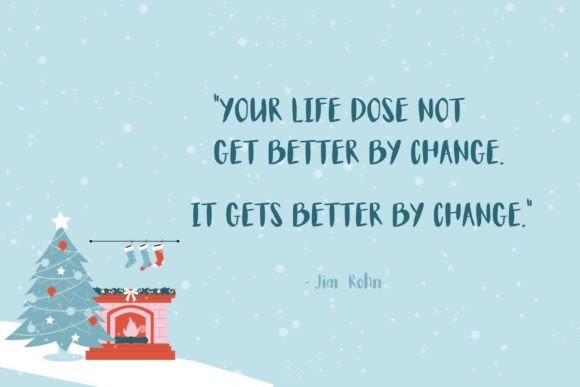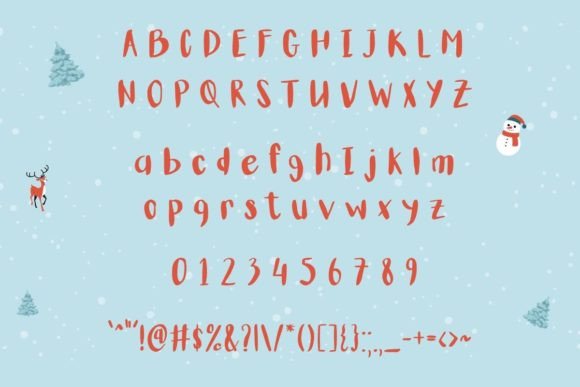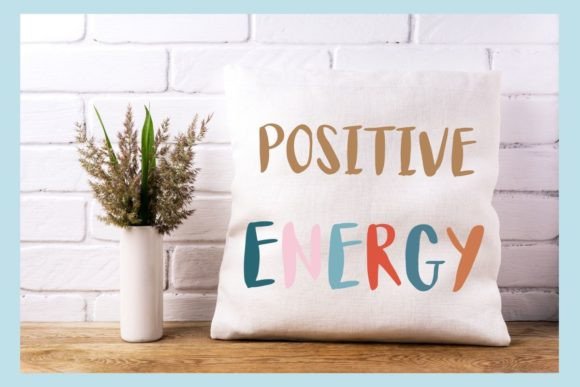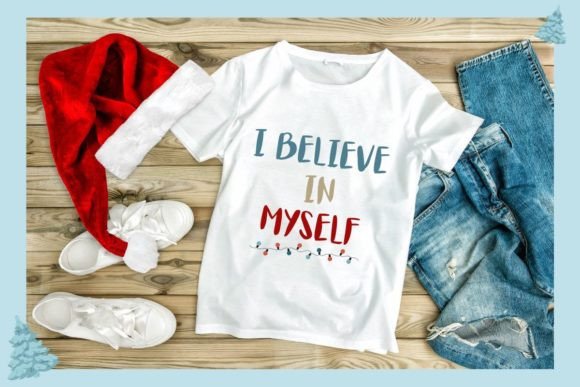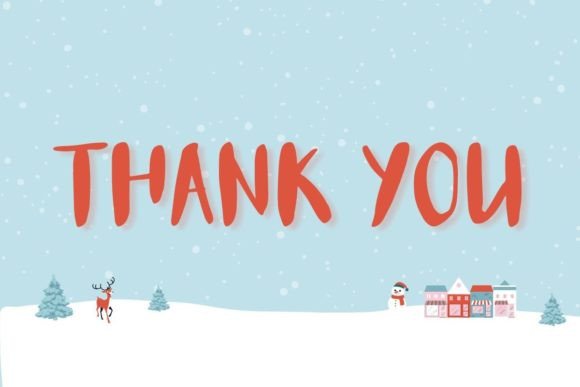
Cracker Font: The Ultimate Choice for Fun and Playful Designs
Are you looking for a font that can add a touch of joy and playfulness to your designs? Look no further than Cracker Font! This chic, trendy, and fun display font is perfect for a wide range of creative projects, from cartoon-related designs and children’s games to quotes, titles, brand names, book covers, posters, and more.
What Makes Cracker Font So Special?
Cracker font is a unique and eye-catching font that is sure to grab attention. Its fun and playful design makes it perfect for projects that require a lighthearted and humorous touch. The font’s clean and crisp lines, combined with its bold and chunky style, make it easy to read and recognize, even at small sizes.
Perfect for Cartoon-Related Designs
If you’re working on a project related to cartoons, comics, or animation, Cracker font is an excellent choice. Its playful and whimsical design is reminiscent of classic cartoons and is sure to bring a smile to your audience’s faces. You can use it to create fun and engaging titles, headings, and text overlays that will make your project stand out.
Great for Children’s Games and Education
Cracker font is also an excellent choice for children’s games, educational materials, and activity sheets. Its fun and playful design will appeal to kids and make learning more engaging and enjoyable. You can use it to create interactive titles, headings, and text that will make your educational materials more effective and fun.
Ideal for Quotes, Titles, and Brand Names
Cracker font is not just limited to cartoon-related designs and children’s games. It’s also an excellent choice for quotes, titles, and brand names. Its bold and chunky style makes it perfect for creating eye-catching headlines and titles that will grab attention. You can use it to create inspiring quotes, titles, and brand names that will make your project stand out.
Book Covers, Posters, and More
Cracker font is a versatile font that can be used for a wide range of creative projects, including book covers, posters, flyers, brochures, and more. Its fun and playful design makes it perfect for projects that require a touch of joy and whimsy. You can use it to create eye-catching titles, headings, and text overlays that will make your project stand out.
Why Choose Cracker Font?
So, why choose Cracker font for your next project? Here are just a few reasons why:
- Fun and playful design: Cracker font has a unique and eye-catching design that is sure to grab attention.
- Versatile: Cracker font can be used for a wide range of creative projects, from cartoon-related designs to book covers and posters.
- Easy to read: Cracker font has clean and crisp lines, making it easy to read and recognize, even at small sizes.
- Perfect for kids: Cracker font is an excellent choice for children’s games, educational materials, and activity sheets.
In conclusion, Cracker font is a chic, trendy, and fun display font that is perfect for a wide range of creative projects. Its fun and playful design makes it an excellent choice for cartoon-related designs, children’s games, quotes, titles, brand names, book covers, posters, and more. With its clean and crisp lines, bold and chunky style, and easy-to-read design, Cracker font is sure to bring a touch of joy and whimsy to your next project. So, why not give it a try and see how it can elevate your designs to the next level?
Cracker font will be an amazing choice for any designer or crafter looking to add a touch of fun and playfulness to their projects. Its versatility, readability, and unique design make it an excellent addition to any design toolkit.